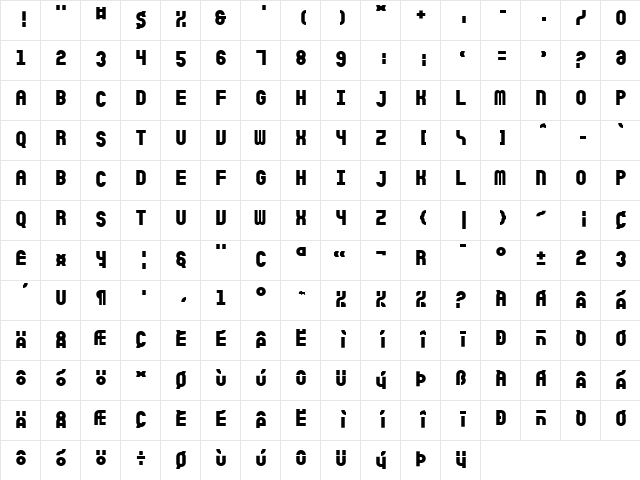
Sicret Mono PERSONAL Bold
| Foundry | Mans Greback AB |
| Designer | Mans Greback |
Design Context for Sicret Mono PERSONAL Typeface
Sicret Mono PERSONAL brings the precise, column-aligned rhythm of monospaced typography to designs that value technical clarity and systematic order. The heavy weight commands attention and anchors typographic hierarchies.